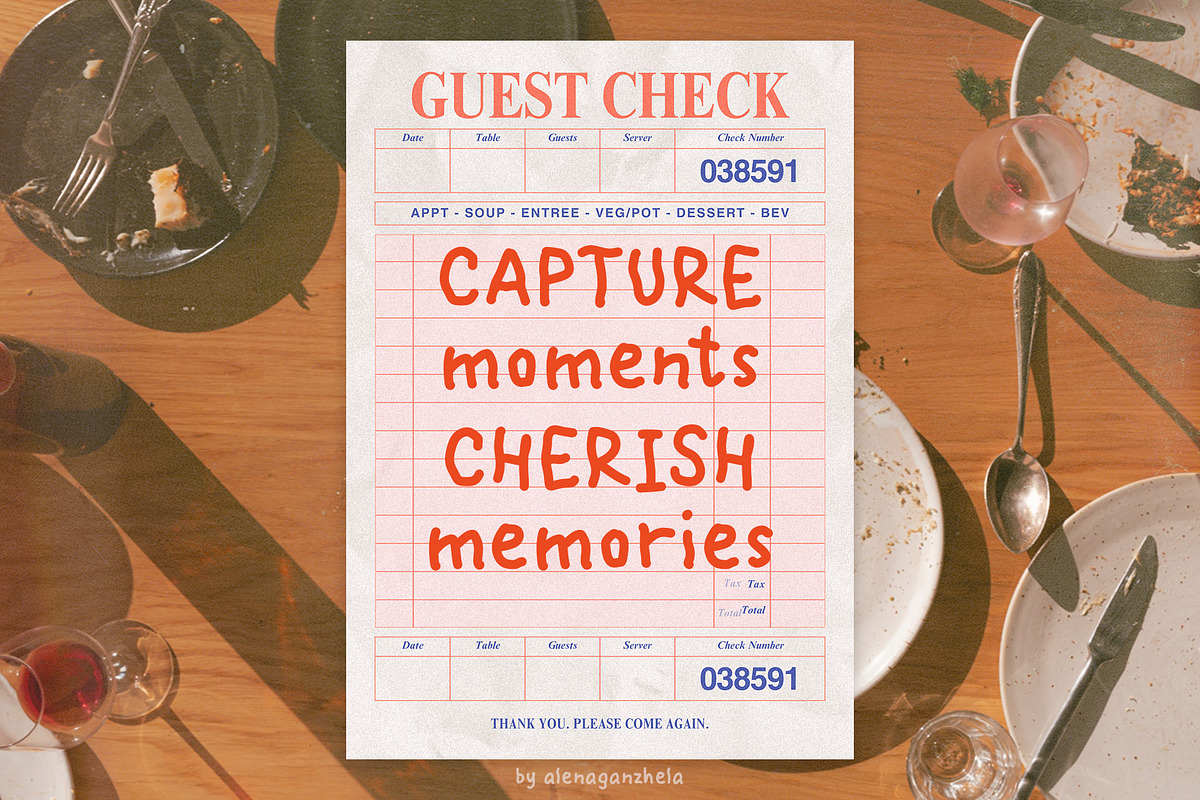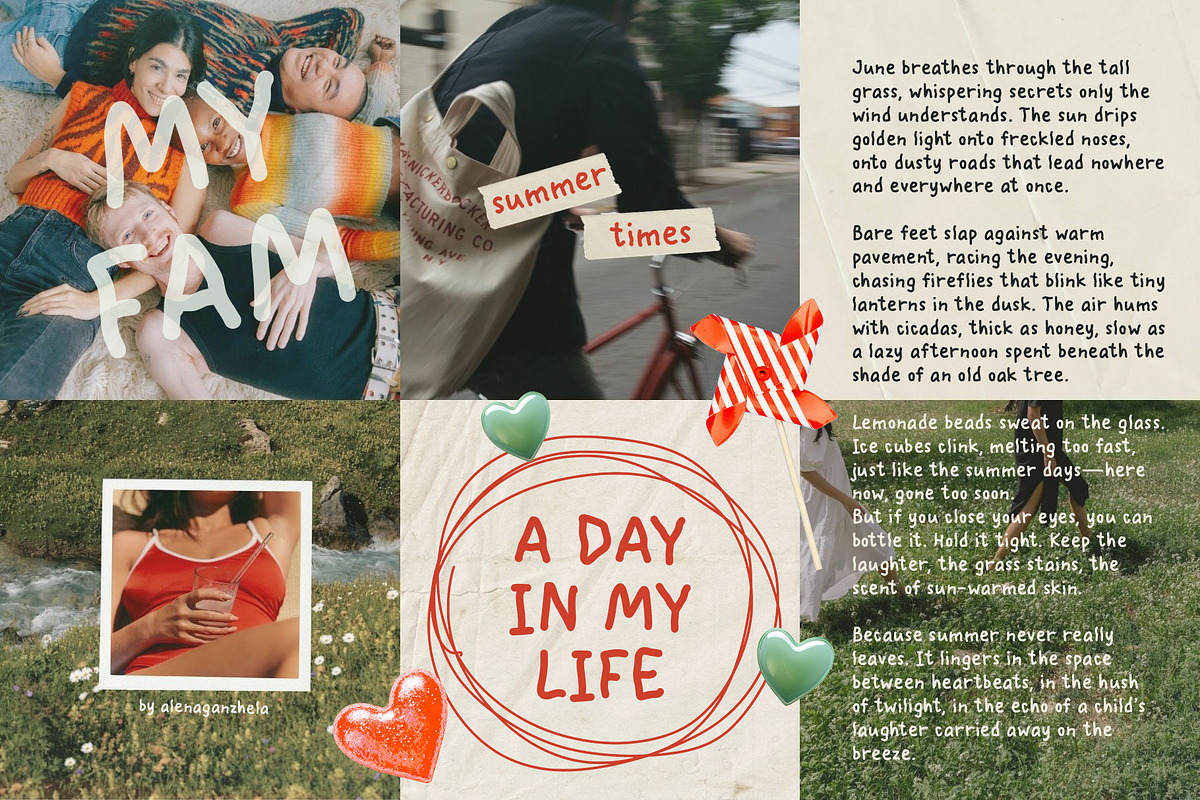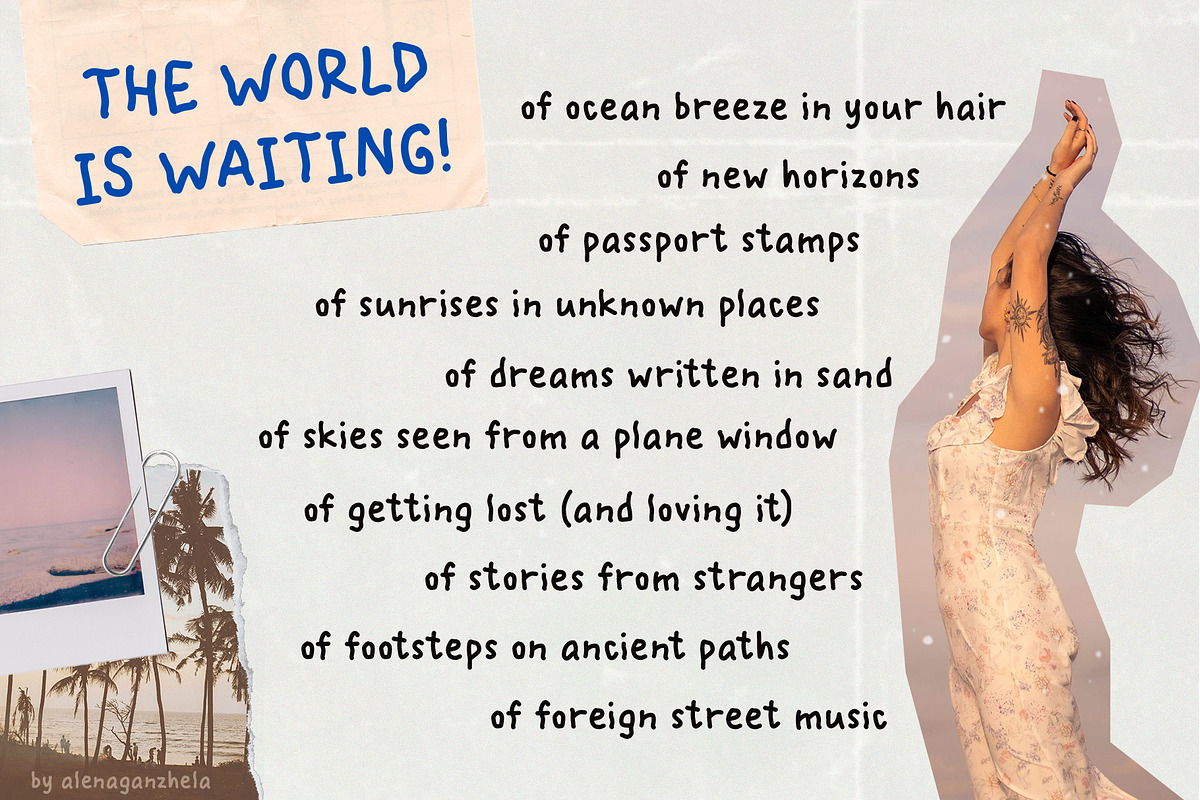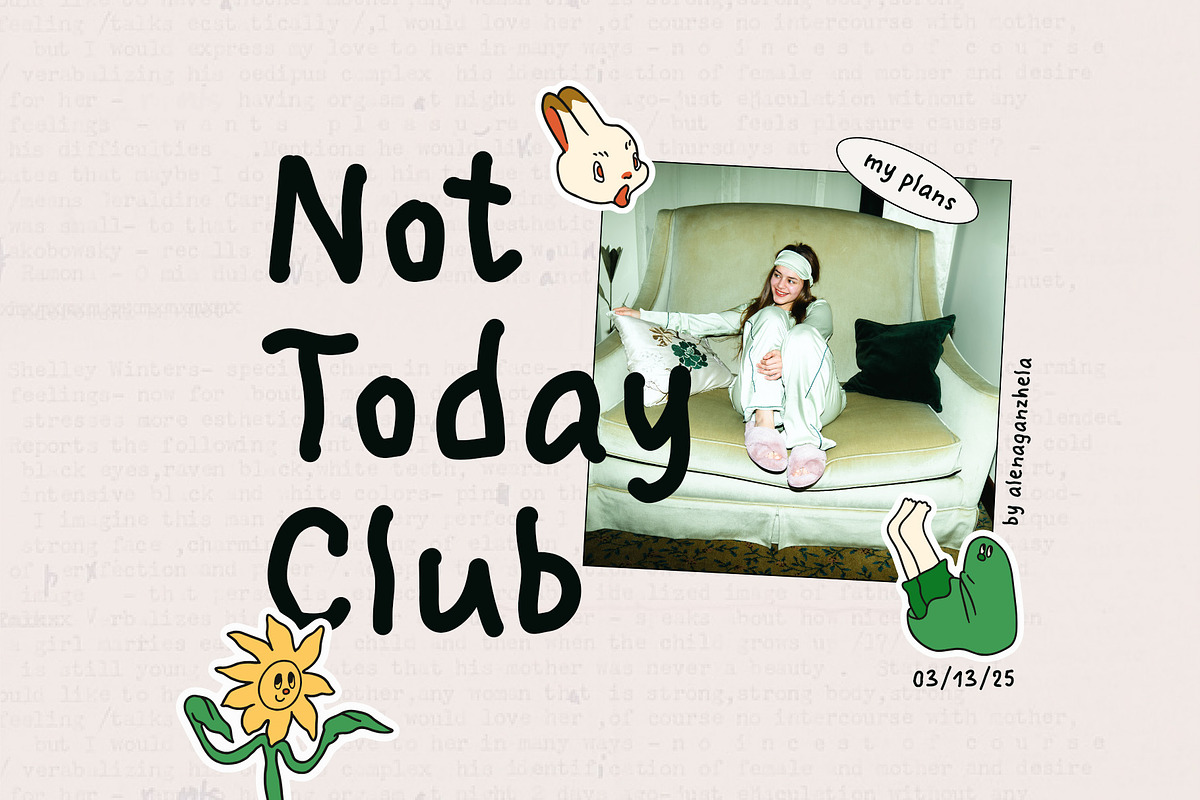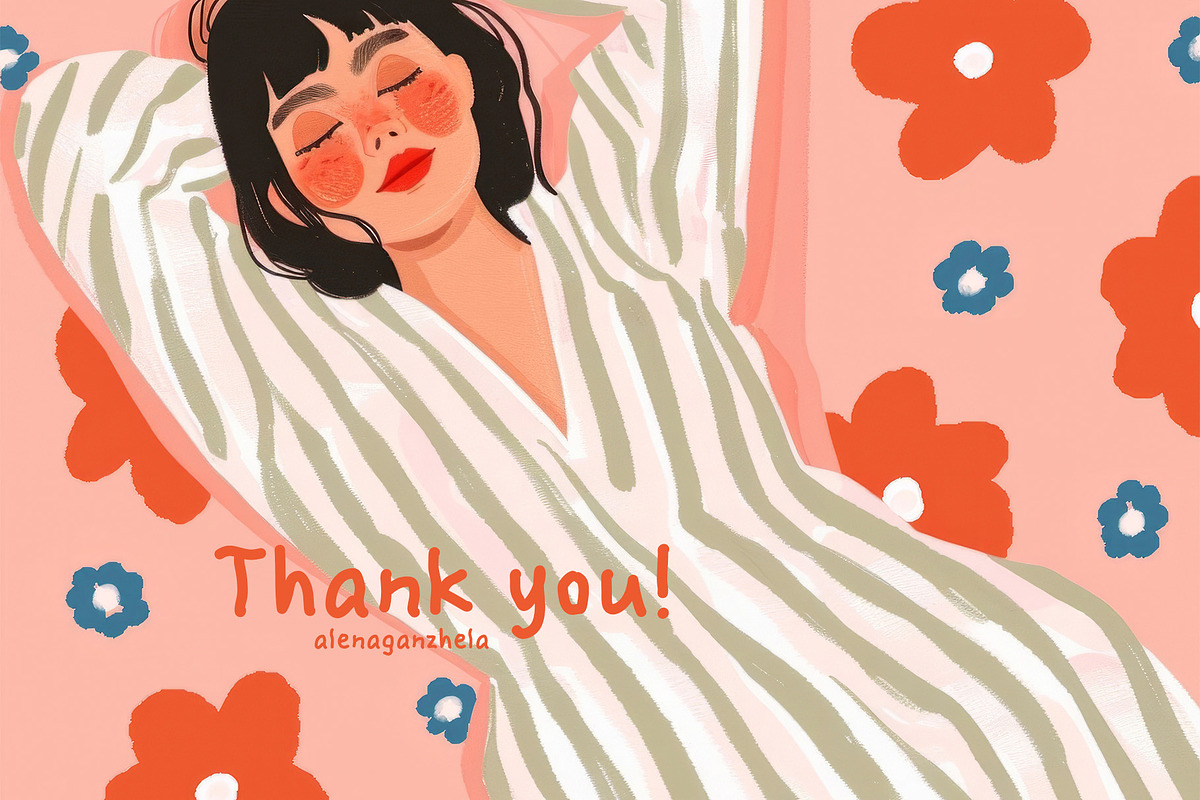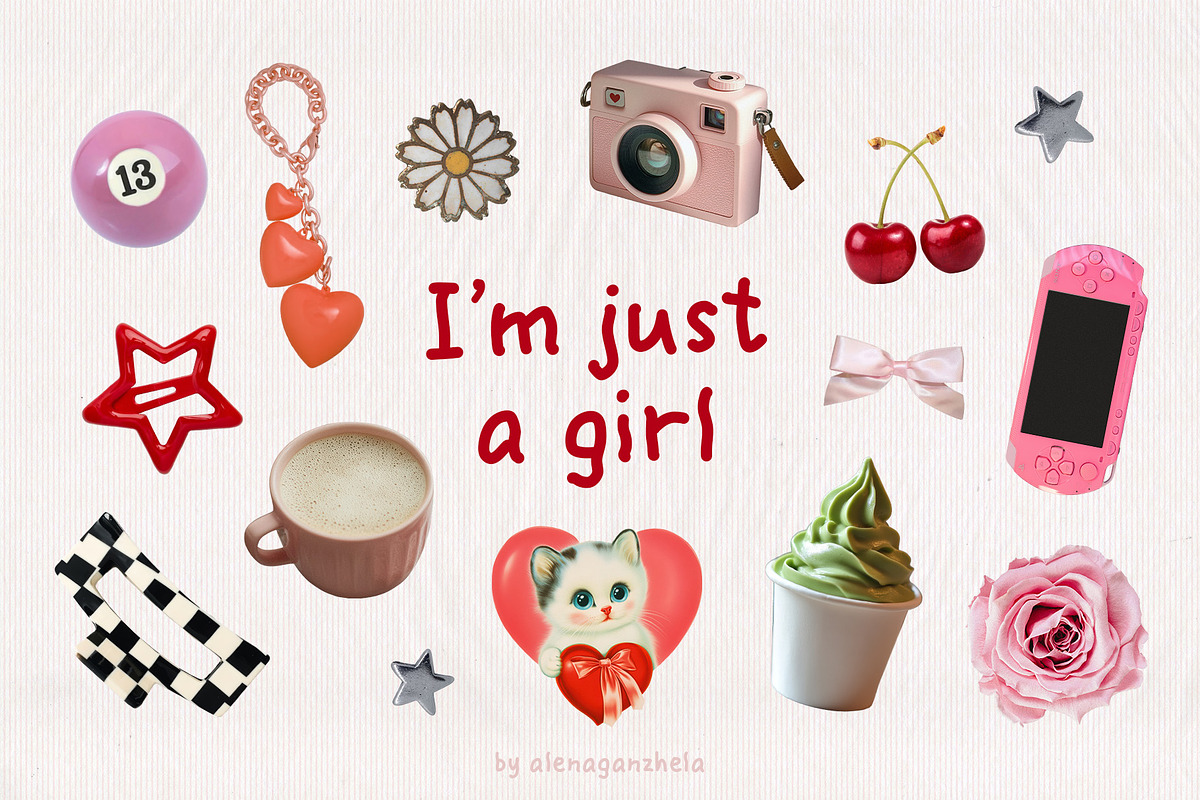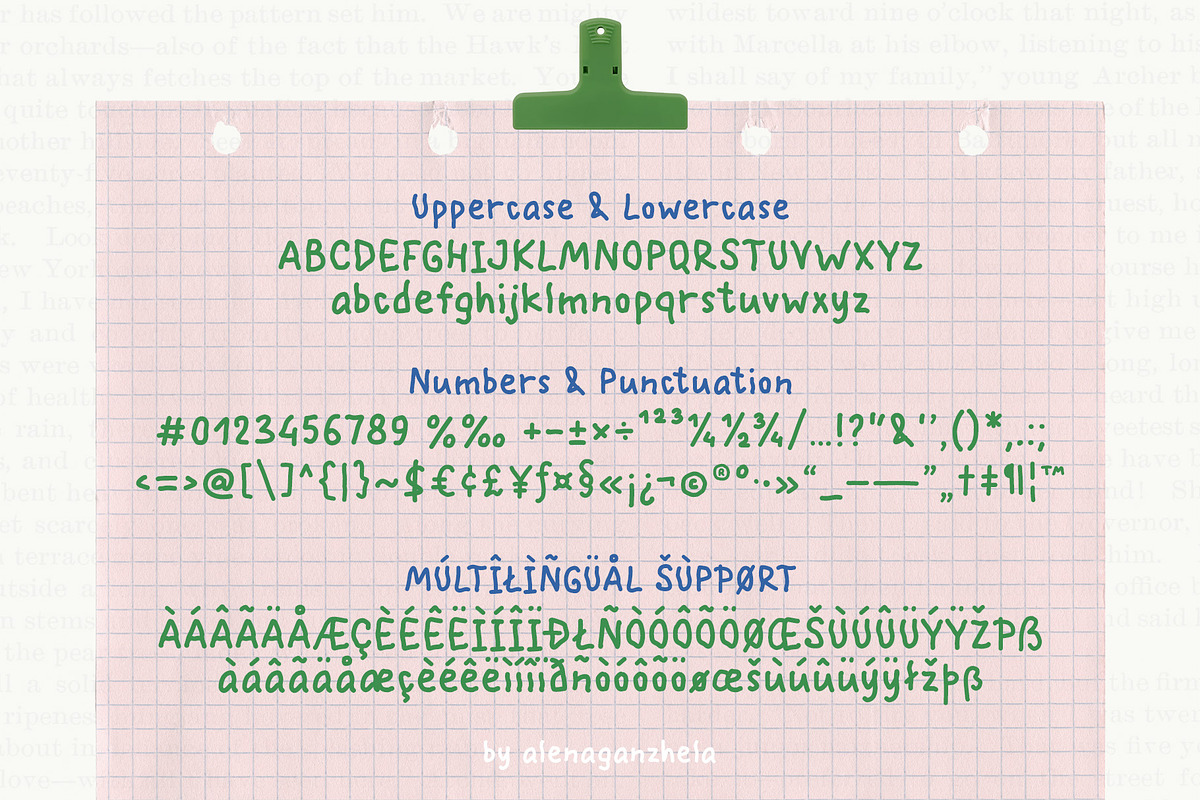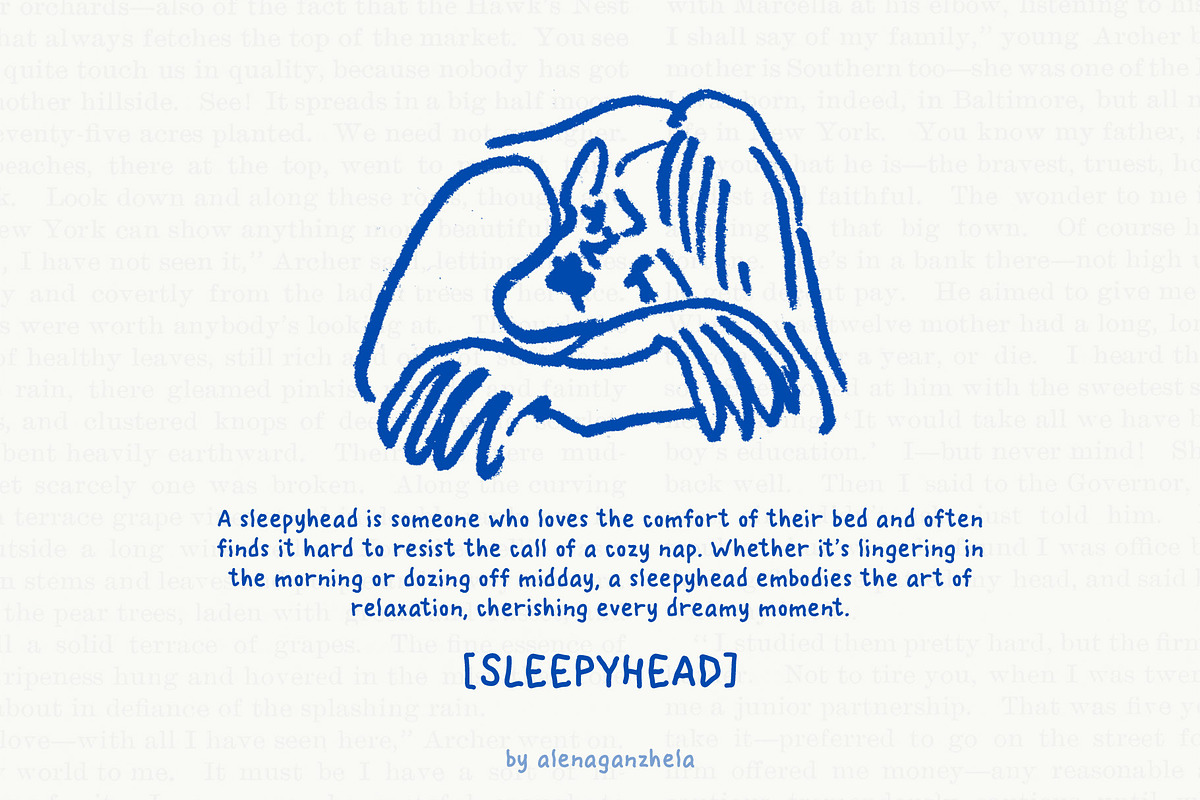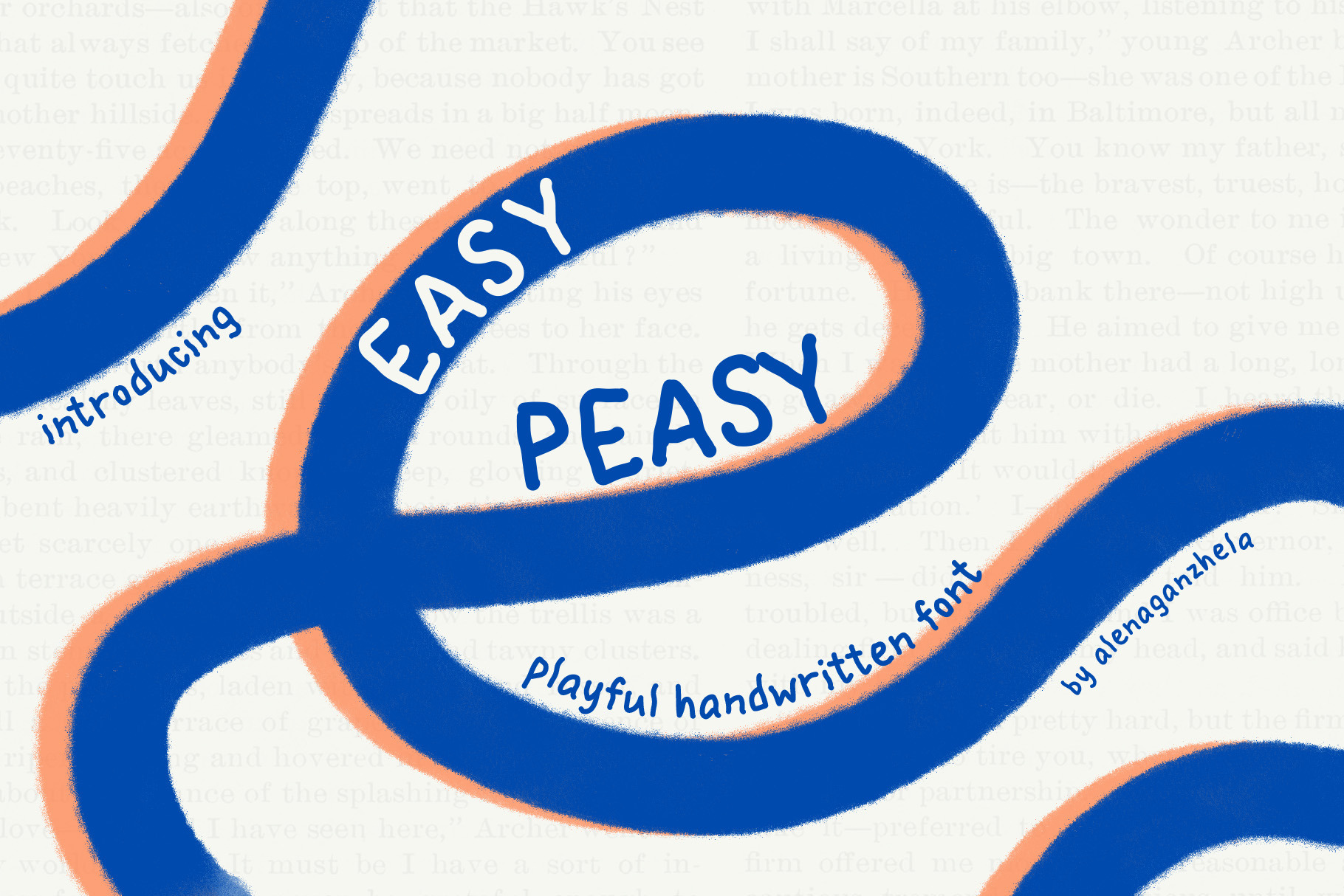
EASY PEASY - wavy handwritten font
Easy Peasy is a playful handwritten font that brings a touch of fun and warmth to any project. With its casual, friendly letterforms and natural flow, this font is perfect for branding, greeting cards, children’s books, packaging, modern posters, wall art prints, wedding invitations, logos, stationery, social media posts and blogs, decorative designs and much more! Whether you're designing a cozy blog, an eye-catching quote, or a creative journal, Easy Peasy adds a personal and cheerful feel to your work.
MULTILINGUAL SUPPORT!